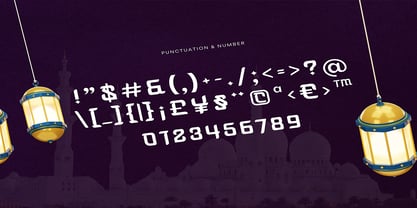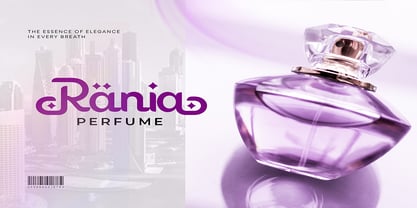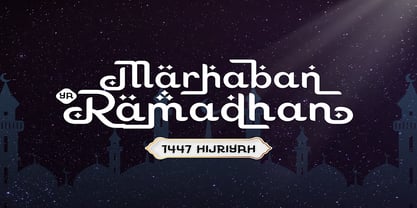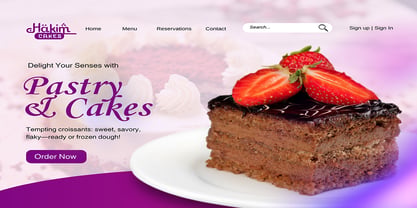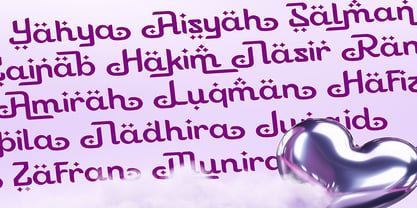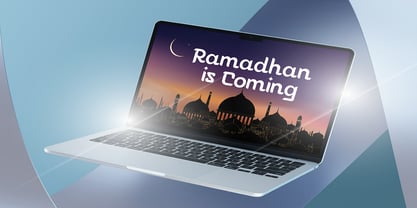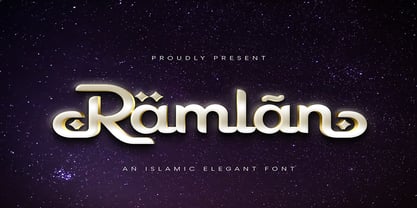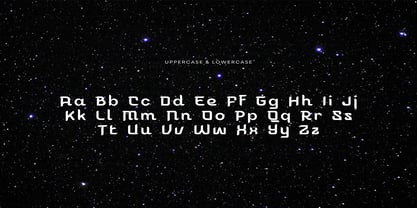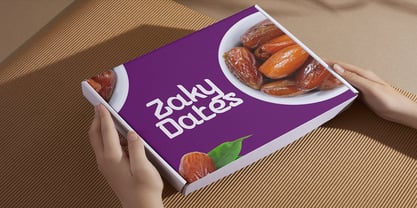
Ramlan
von Jaruka Creative
Die Schriftfamilie Ramlan wurde von Edy Subiyanto entworfen und von Jaruka Creative veröffentlicht. Ramlan enthält 1 Stile. Mehr über diese Familie
Ramlan – An Islamic Elegant Font
Unlock the perfect blend of rich cultural heritage and sleek contemporary design with Ramlan, a modern Islamic font engineered to elevate your creative projects. Crafted with a mesmerizing flow and sophisticated curves, Ramlan captures the timeless elegance of traditional Arabic aesthetics while maintaining clean, modern readability.
Whether you are designing for a sacred holiday, branding a luxury product, or curating contemporary digital content, Ramlan adds an instant layer of prestige and grace.
Key Features:
• Exquisite Letterforms: Beautifully stylized uppercase and lowercase characters featuring unique swashes, modern diacritics, and elegant starlike diamond accents.
• Versatile Branding Power: Perfect for luxury packaging (like perfume or gourmet dates), culinary web design, and festive editorial layouts.
• Comprehensive Package: Includes full uppercase and lowercase alphabets, numbers, and an extensive suite of essential punctuation marks and symbols.
• Festive Perfection: The ultimate typeface choice for Ramadan graphics, Eid Mubarak greetings, Hijri calendar designs, and Islamic event promotional materials.
Designer: Edy Subiyanto
Foundry: Jaruka Creative